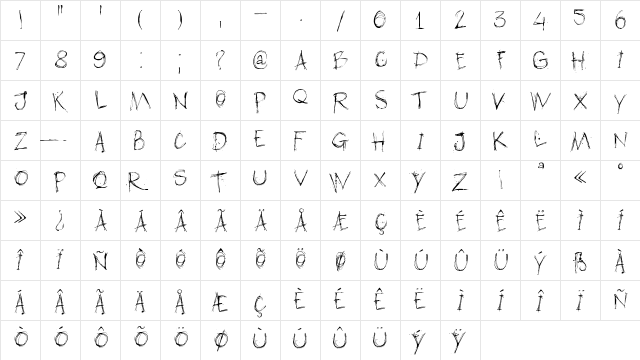
DK American Grunge Regular
Design Context for DK American Grunge Typeface
DK American Grunge trades polish for personality, using distressed and eroded forms to bring grit and attitude to creative work.
Suited to punk-influenced zines, underground music branding, streetwear, and raw, anti-corporate design.
Pro Tip: Pair DK American Grunge with intentionally raw or lo-fi design elements. Fighting against it with overly polished surroundings will undermine its personality.